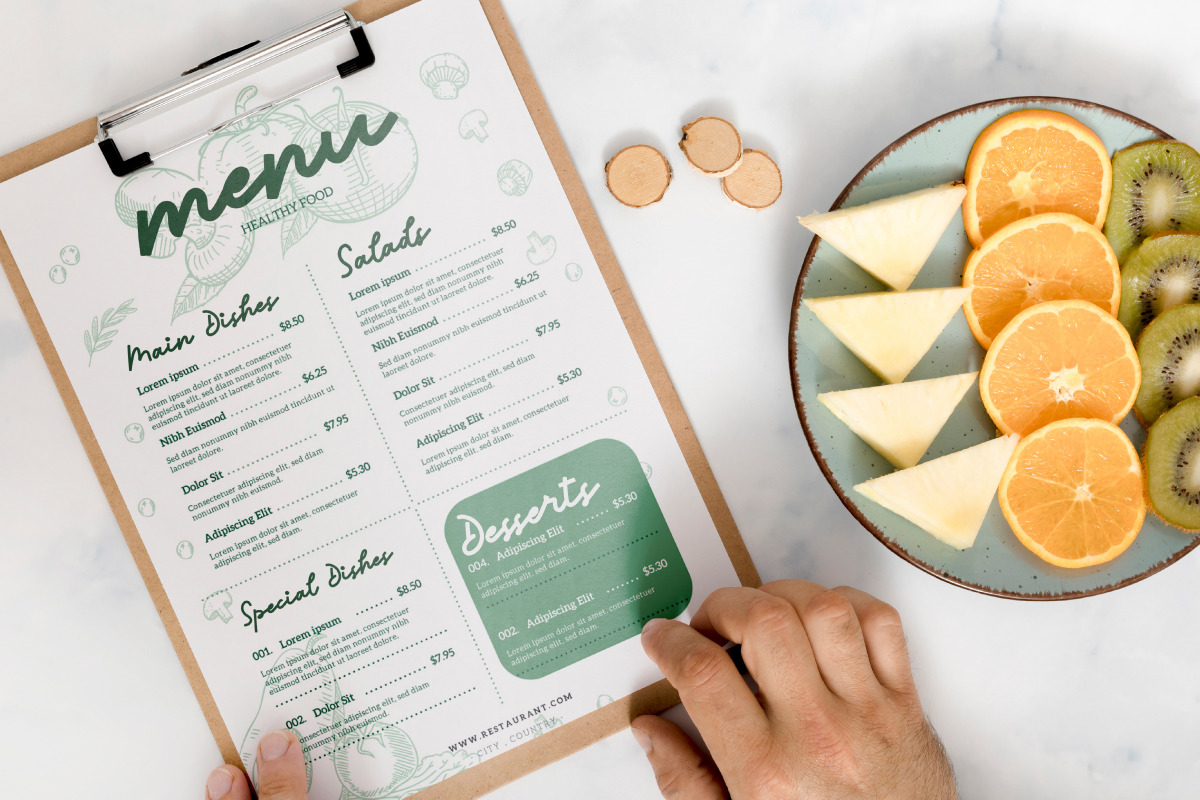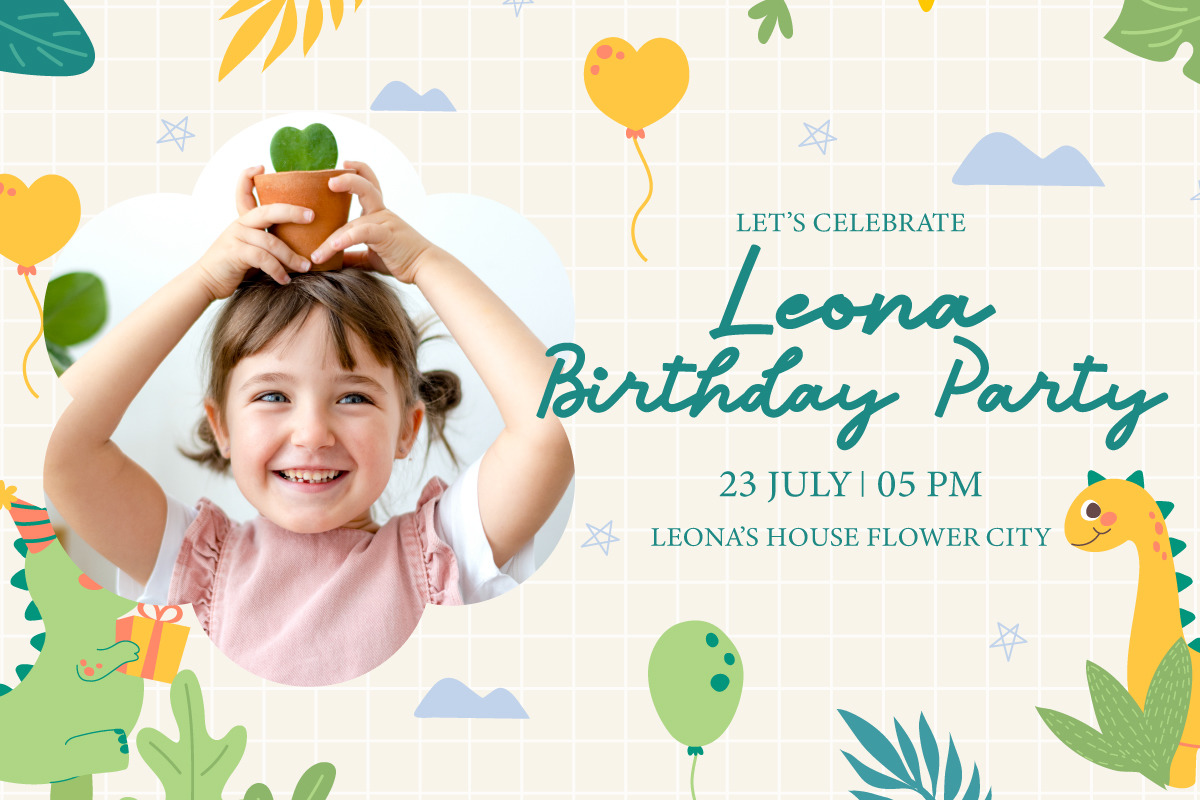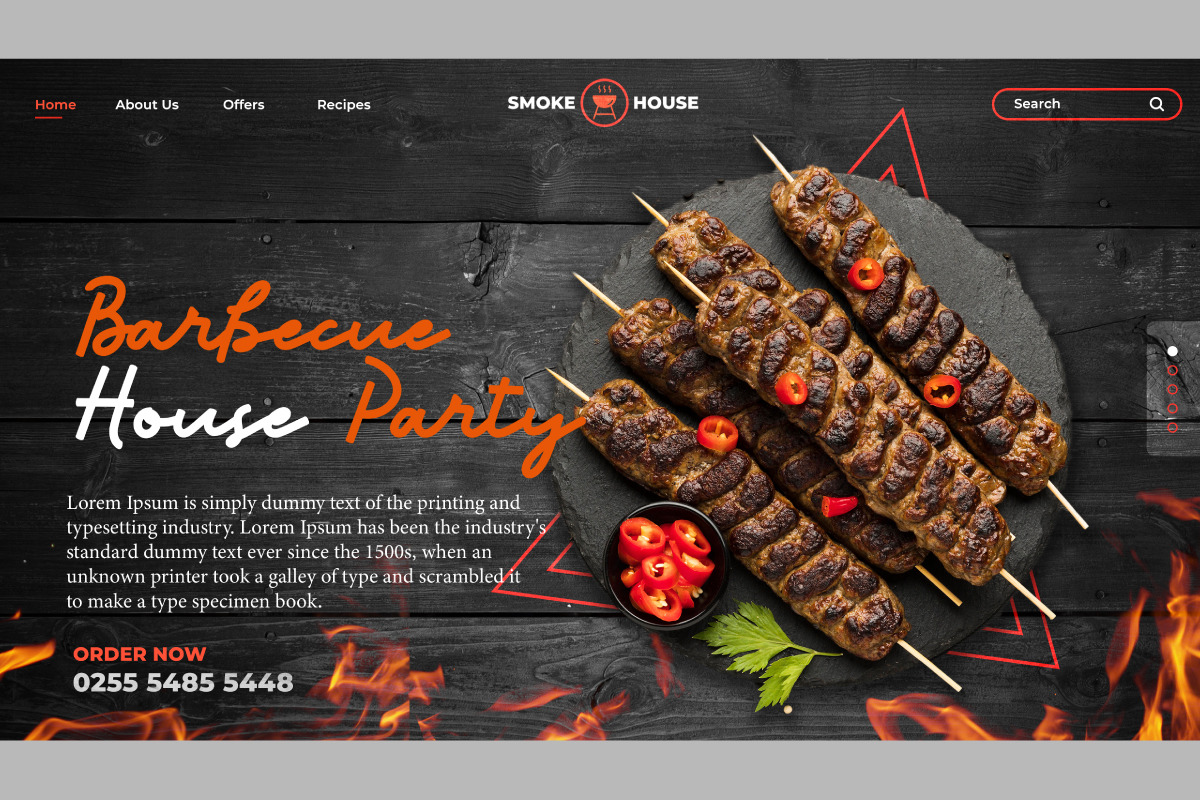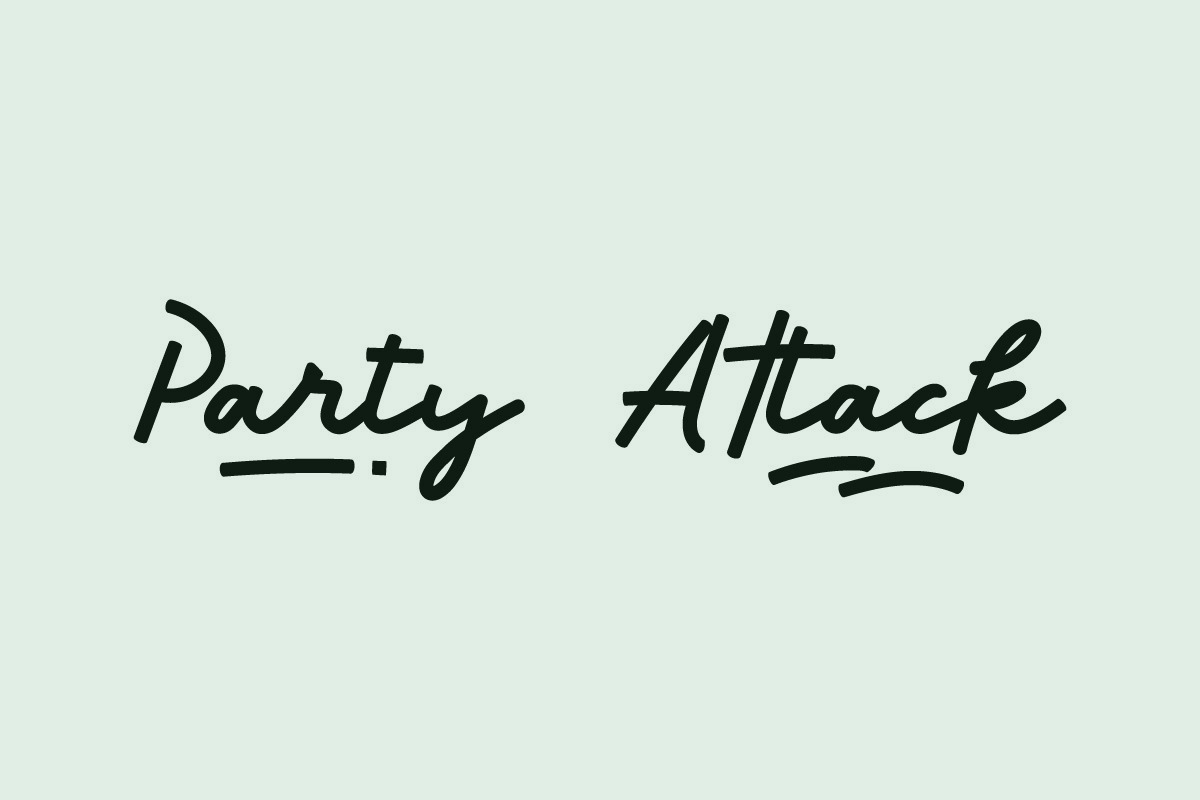
Party Attack Handwritten Font
Party Attack Font is a casual, simple, and cheerful handwritten font. This font is great for your next creative projects and business categories such as birthday party, boutique, branding, business card, café, florist, interior design, invitation, kids, logo design, menu flyer, packaging design, quotes, restaurant, school, title, typefaces, watermark on photography, web header, wedding, and many other design project.
Party Attack Font comes with uppercase letters, lowercase letters, numbers, punctuation, symbol, ligature, swoosh, and multi language support. Works on PC & Mac with Simple installation. Can be accessed in Adobe Illustrator, Adobe Photoshop, Adobe InDesign, and even works in Microsoft Word. PUA Encoded Characters – Fully accessible no special software required.